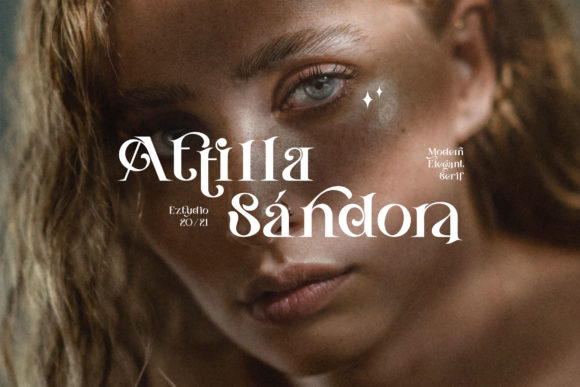
Introducing Attilla Sándora Font: A Modern, Elegant, and Highly Detailed Serif Font
In the world of typography, fonts play a crucial role in conveying the tone and personality of a brand, product, or service. With the vast array of fonts available, it can be challenging to find one that stands out from the rest. However, if you’re looking for a font that exudes elegance, sophistication, and a touch of uniqueness, look no further than Attilla Sándora Font. In this article, we’ll explore the features and benefits of Attilla Sándora, a modern, elegant, and highly detailed serif font that is sure to elevate your designs to the next level.
What is Attilla Sándora Font?
Attilla Sándora Font is a modern serif font designed to make a statement. Its elegant and highly detailed letterforms make it an ideal choice for a wide range of creative projects, from luxury branding to high-end packaging, and from editorial design to digital marketing materials. This font is imposing, featuring uniquely shaped letters that set it apart from more traditional serif fonts.
One of the key characteristics of Attilla Sándora is its distinctive touch. The font’s letterforms are carefully crafted to convey a sense of sophistication and refinement, making it perfect for designs that require a high level of elegance and poise. Whether you’re creating a logo, heading, or body text, Attilla Sándora is sure to add a touch of class and sophistication to your work.
Key Features of Attilla Sándora Font
So, what makes Attilla Sándora Font so special? Here are some of its key features:
- Modern and Elegant Design: Attilla Sándora boasts a modern and elegant design that is sure to turn heads. Its sleek lines, refined curves, and carefully crafted letterforms make it a standout in the world of typography.
- Highly Detailed Serif: The font features a highly detailed serif design that adds a touch of sophistication and refinement to any text.
- Uniquely Shaped Letters: Attilla Sándora’s letterforms are uniquely shaped, making it easy to distinguish from other serif fonts.
- Imposing yet Elegant: Despite its imposing presence, Attilla Sándora is an elegant font that conveys a sense of refinement and poise.
Use Cases for Attilla Sándora Font
Attilla Sándora Font is a versatile font that can be used in a wide range of creative projects. Here are some examples of use cases where Attilla Sándora excels:
- Luxury Branding: Attilla Sándora is perfect for luxury brands that require a high-end font to convey their brand values.
- Editorial Design: The font is ideal for editorial design projects, such as magazines, newspapers, and books, where a high level of elegance and sophistication is required.
- Digital Marketing Materials: Attilla Sándora can be used to create digital marketing materials, such as social media graphics, email headers, and landing pages, that require a touch of elegance and refinement.
- Packaging Design: The font is suitable for packaging design projects, such as product labels, packaging inserts, and point-of-sale displays, where a high-end look and feel is required.
Benefits of Using Attilla Sándora Font
So, why choose Attilla Sándora Font for your next project? Here are some benefits of using this elegant and highly detailed serif font:
- Stand out from the Crowd: Attilla Sándora’s unique design ensures that your project stands out from the crowd and grabs attention.
- Elegance and Sophistication: The font conveys a sense of elegance and sophistication, making it perfect for high-end projects.
- Versatility: Attilla Sándora can be used in a wide range of creative projects, from luxury branding to editorial design.
- Easy to Read: Despite its elegant design, Attilla Sándora is easy to read, making it suitable for body text and headings.
In conclusion, Attilla Sándora Font is a modern, elegant, and highly detailed serif font that is sure to elevate your designs to the next level. Its unique design, highly detailed serif, and imposing yet elegant presence make it perfect for a wide range of creative projects. Whether you’re creating a luxury brand, editorial design, or digital marketing materials, Attilla Sándora is an excellent choice. So, why settle for an ordinary font when you can make a statement with Attilla Sándora?